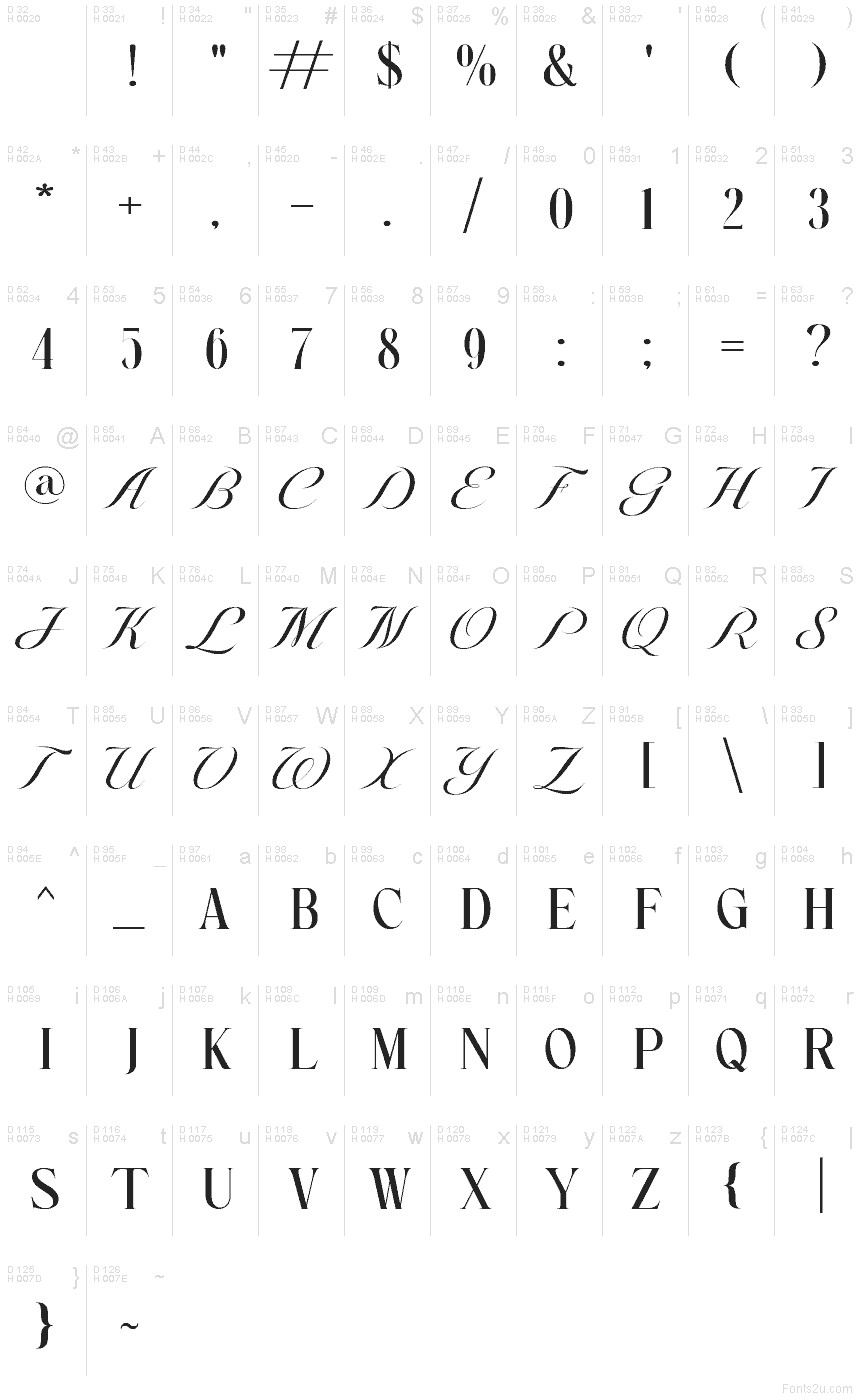
Newton Scient
Newton Scient font by Graphicxell is a free decorative serif typeface that twists classical elegance into something sharp and unexpected. Tall, slender letters slice across the line with inky, blade-like strokes, while subtle curves and flourishes keep it from feeling cold. The result is a striking tension between couture refinement and experimental edge, as if a fashion magazine masthead and a scientific diagram collided on the same page.
Using Newton Scient, headlines instantly feel crafted and intentional—great for luxury branding, editorial titles, posters, book covers, packaging, and avant‑garde event invitations. The tight rhythm and dramatic vertical energy draw the eye from a distance, so this free font shines at larger sizes. Pair it with a quiet, neutral sans serif for body text to let those sculpted letterforms stay in the spotlight.